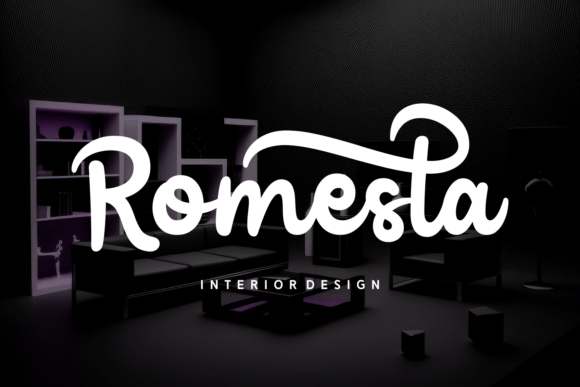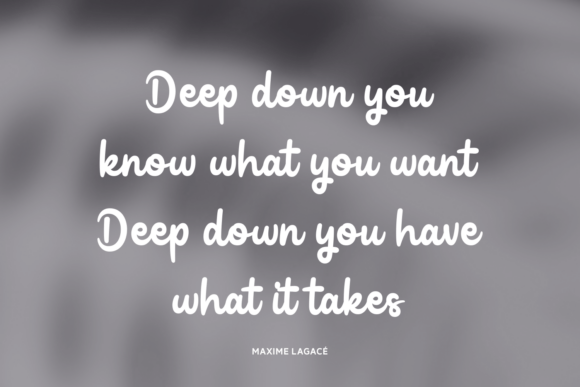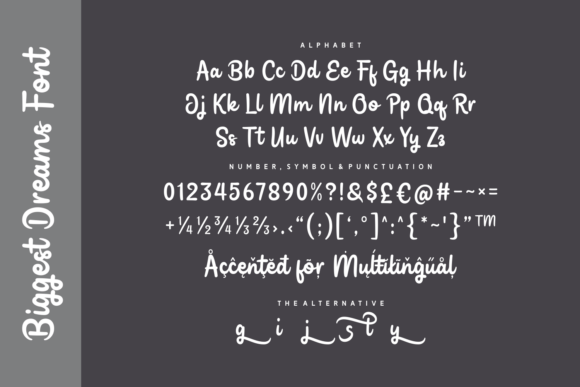
Introducing Biggest Dreams Font: Elevate Your Designs with a Bold and Lively Script
In the world of typography, a font can make or break a design. It has the power to evoke emotions, convey messages, and capture attention. For designers and crafters looking to add a touch of modern appeal and sophistication to their creative projects, Biggest Dreams Font is an excellent choice. This bold and lively script font is designed to make a statement, making it perfect for logos, branding, packaging, and headlines that demand attention.
The Charm of Biggest Dreams Font
Biggest Dreams Font boasts an eye-catching design that is both playful and sophisticated. Its smooth swashes and fluid lines give it a modern appeal that sets it apart from other fonts. The font’s unique charm lies in its ability to add a dynamic and fun touch to any design, making it truly unforgettable. Whether you’re working on digital or print designs, Biggest Dreams Font works beautifully in various applications, including social media graphics, posters, and invitations.
Biggest Dreams Font is a versatile font that can elevate a wide range of creative projects. Its bold and lively design makes it perfect for:
- Logos and Branding: Create a lasting impression with a unique and memorable logo that reflects your brand’s personality.
- Packaging: Stand out on store shelves with eye-catching packaging that showcases your product’s personality.
- Headlines: Grab attention with bold and lively headlines that demand attention.
- Social Media Graphics: Create engaging social media graphics that reflect your brand’s personality and style.
- Posters and Invitations: Add a touch of sophistication and elegance to your posters and invitations.
Why Choose Biggest Dreams Font?
So, why choose Biggest Dreams Font over other fonts? Here are a few reasons:
- Unique Design: Biggest Dreams Font boasts a unique design that sets it apart from other fonts.
- Versatility: The font is versatile and can be used in various creative projects, from digital designs to print materials.
- Easy to Read: Despite its bold and lively design, Biggest Dreams Font is easy to read, making it perfect for headlines and titles.
- Modern Appeal: The font’s modern appeal makes it perfect for designers and crafters looking to add a touch of sophistication to their designs.
Tips for Using Biggest Dreams Font
To get the most out of Biggest Dreams Font, here are a few tips:
- Use it as a Headline Font: Biggest Dreams Font is perfect for headlines and titles. Use it to grab attention and add a touch of sophistication to your designs.
- Pair it with Other Fonts: Experiment with pairing Biggest Dreams Font with other fonts to create a unique and visually appealing design.
- Use it in Digital Designs: Biggest Dreams Font works beautifully in digital designs, including social media graphics and website headers.
Biggest Dreams Font is a bold and lively script font that can elevate a wide range of creative projects. Its unique design, versatility, and modern appeal make it perfect for designers and crafters looking to add a touch of sophistication and elegance to their designs. Whether you’re working on logos, branding, packaging, or headlines, Biggest Dreams Font is an excellent choice. So, why settle for ordinary fonts when you can make a statement with Biggest Dreams Font?
With Biggest Dreams Font, you can create designs that are truly unforgettable. Its smooth swashes and fluid lines give it a modern appeal that sets it apart from other fonts. So, take your designs to the next level with Biggest Dreams Font and make a lasting impression on your audience.